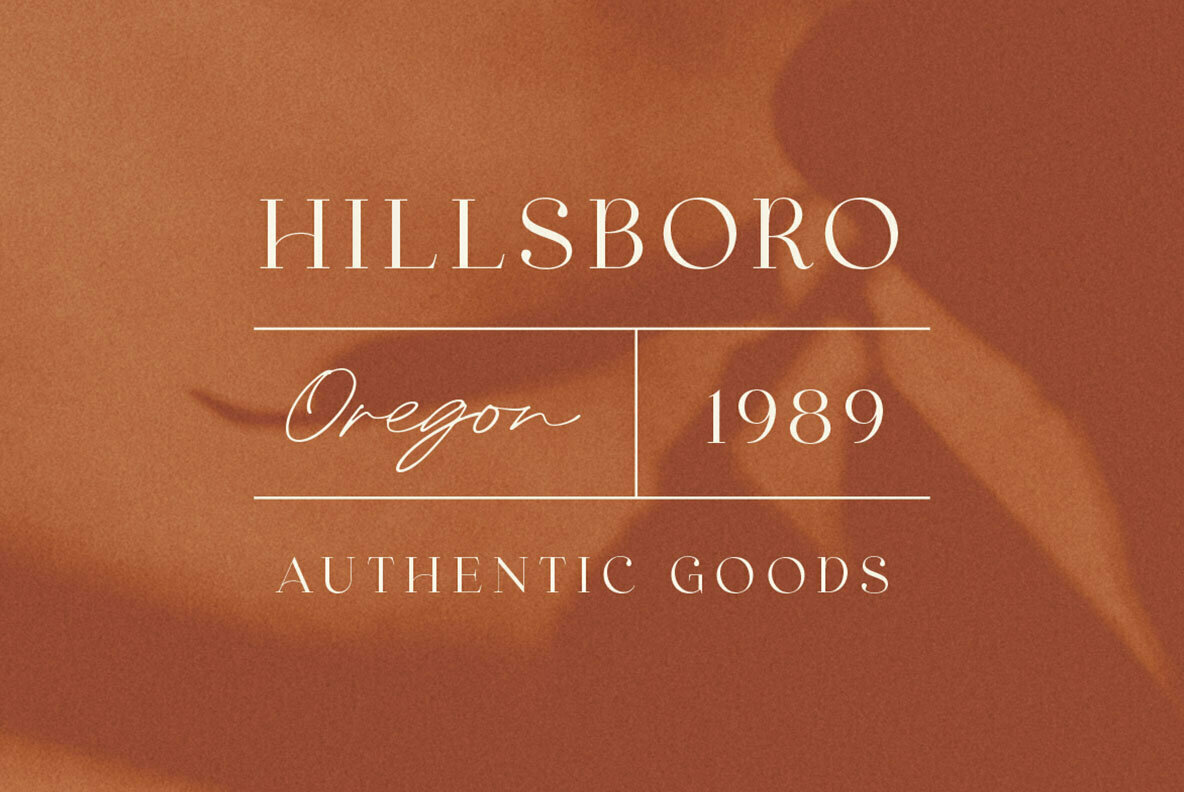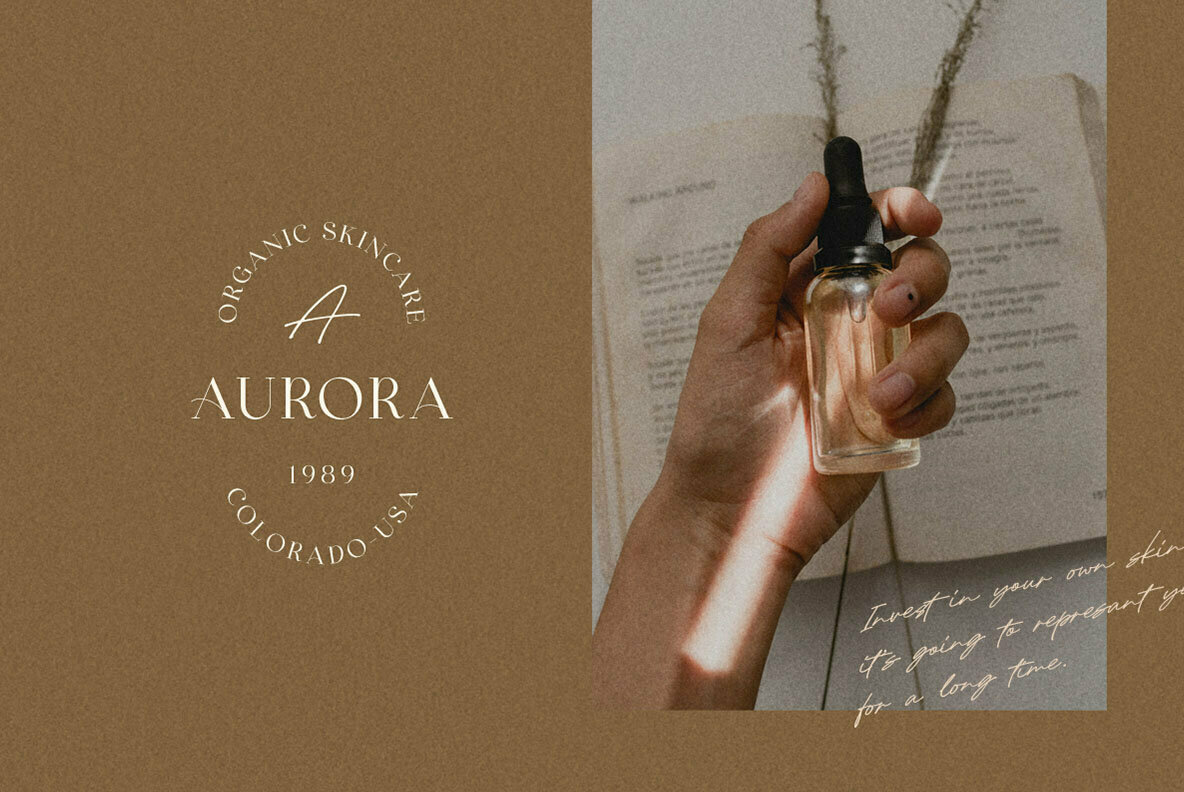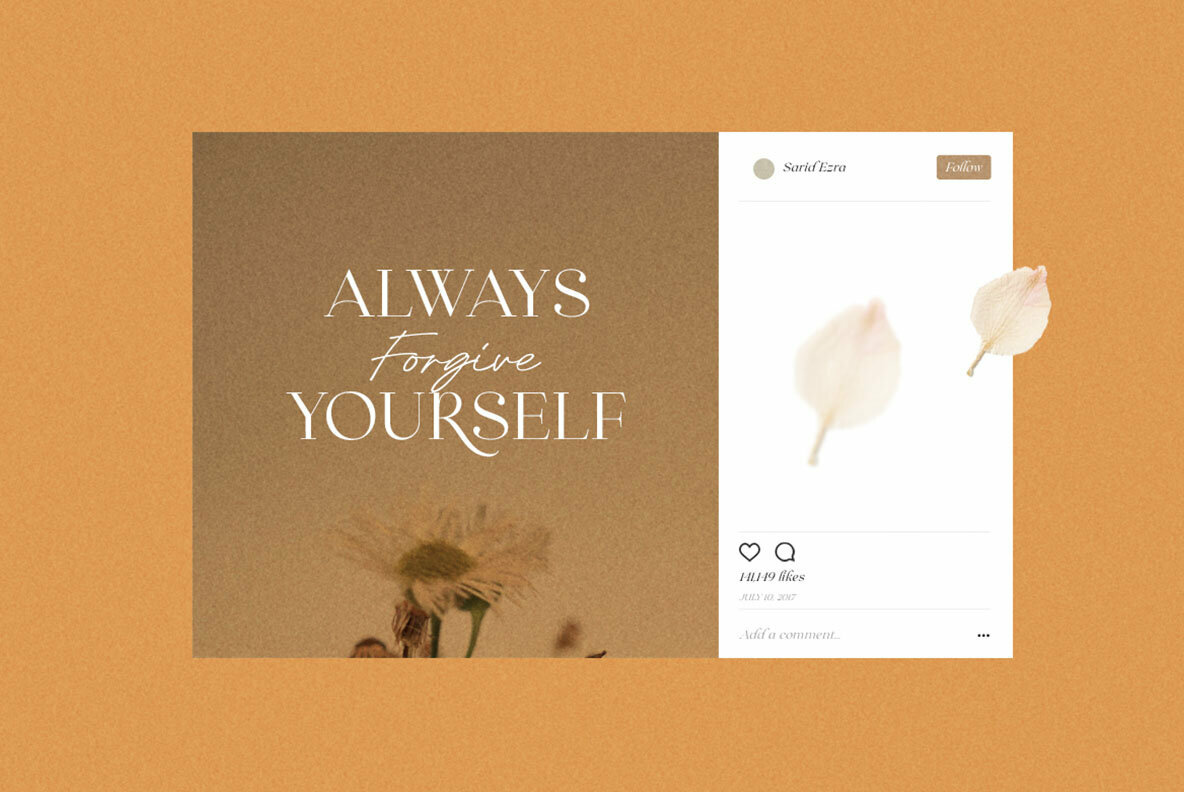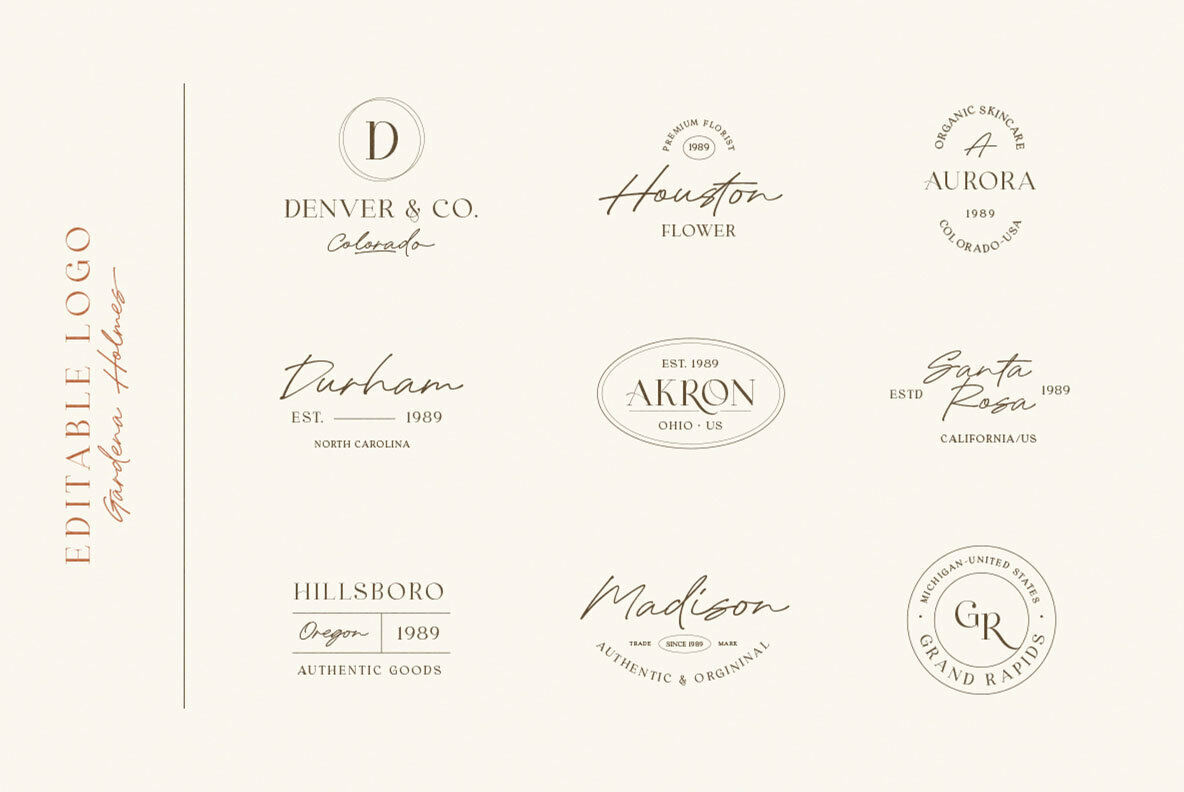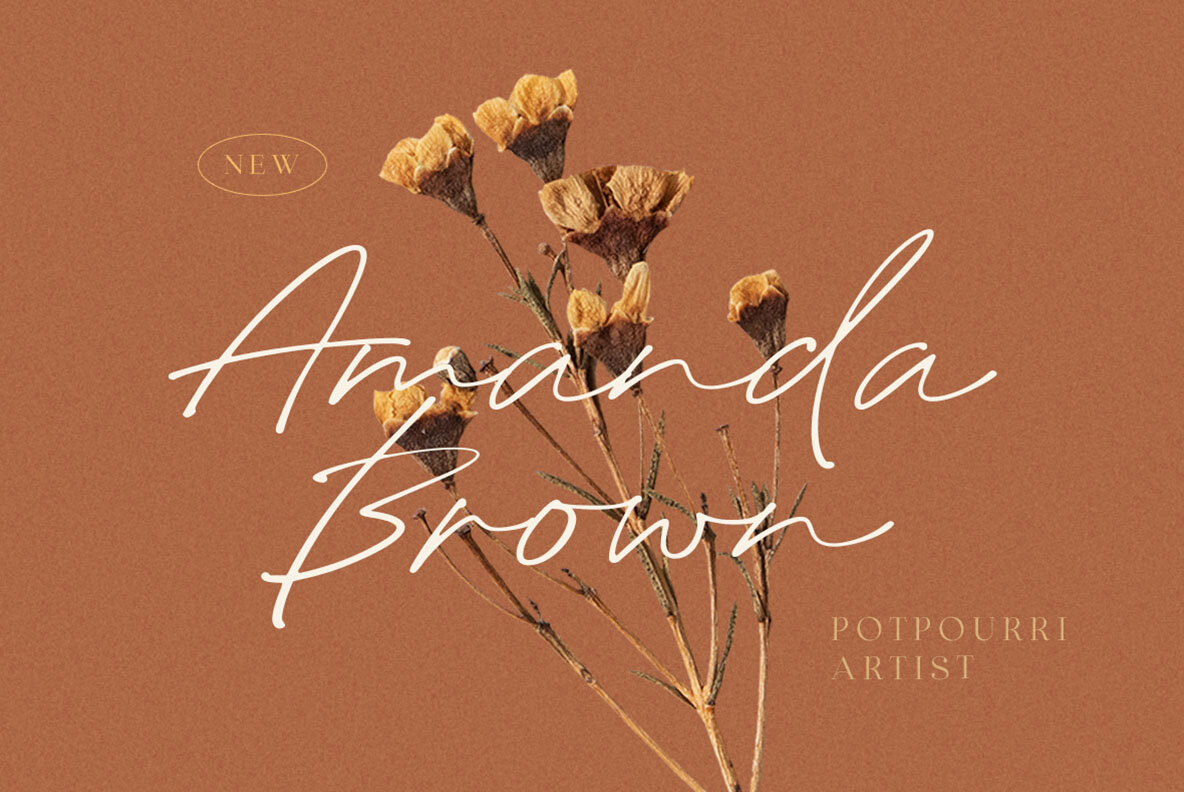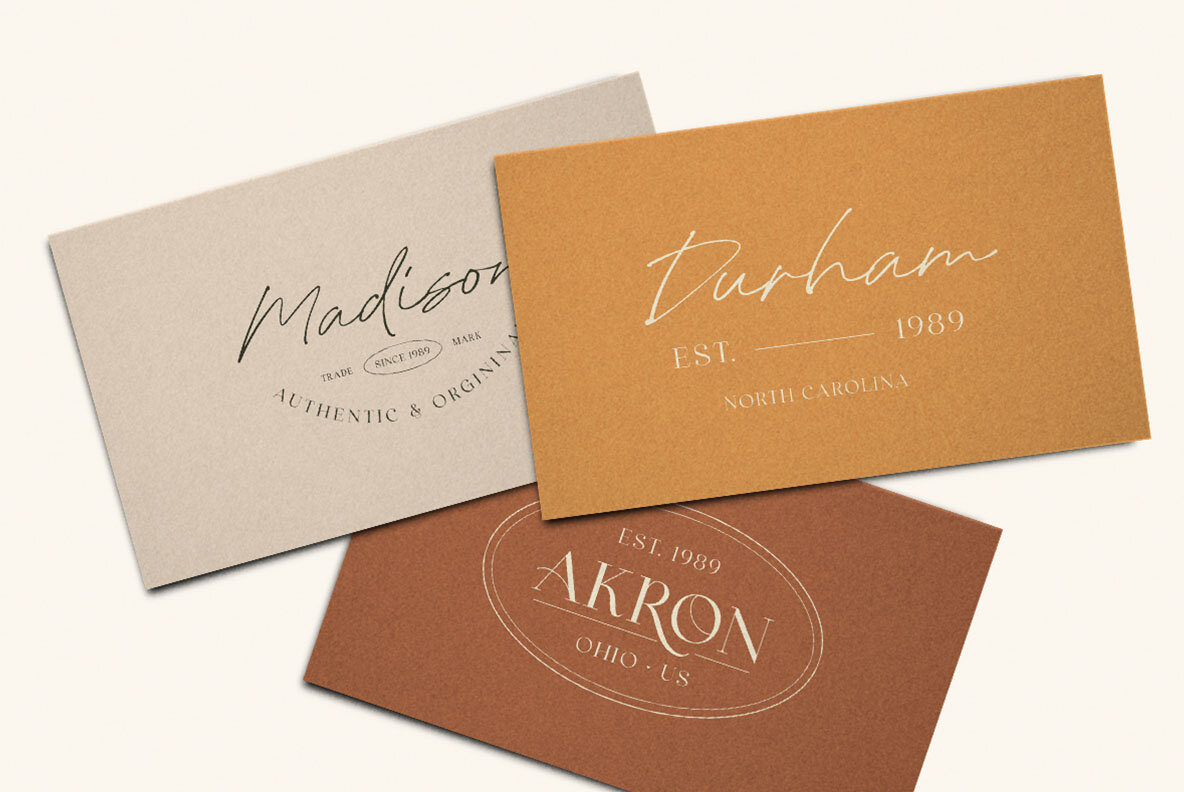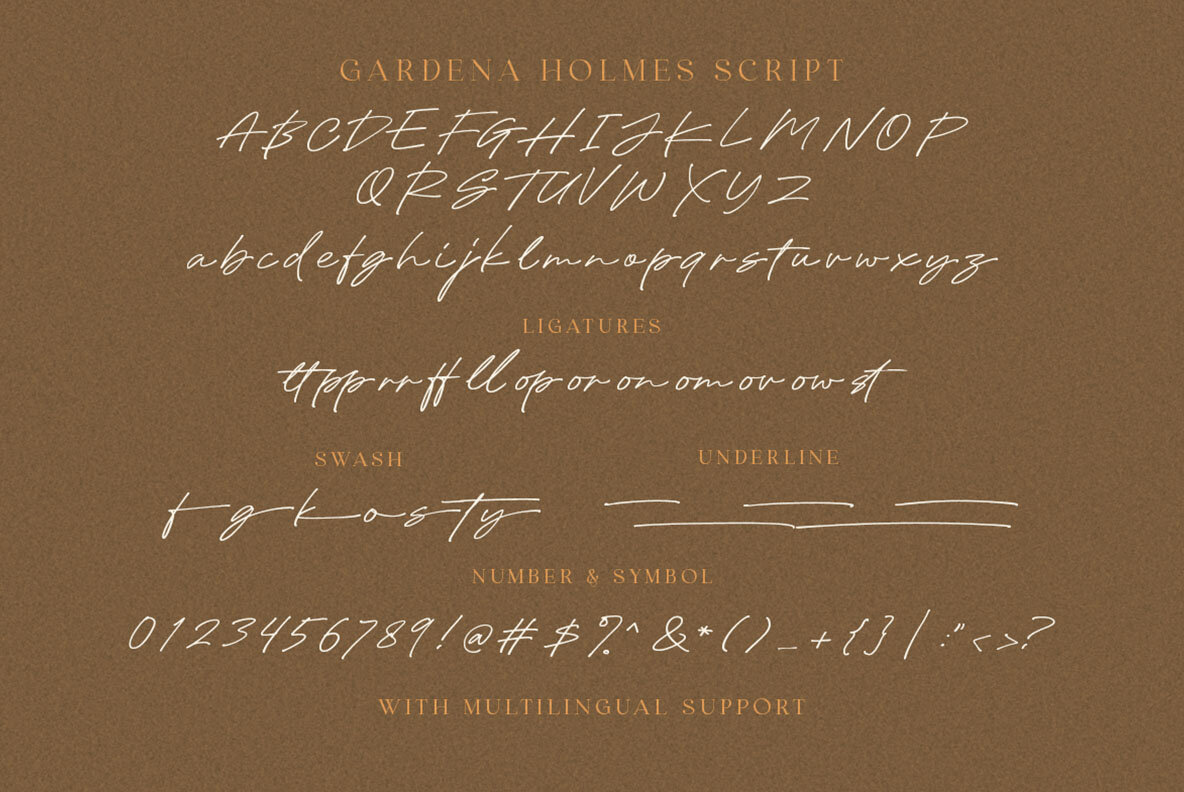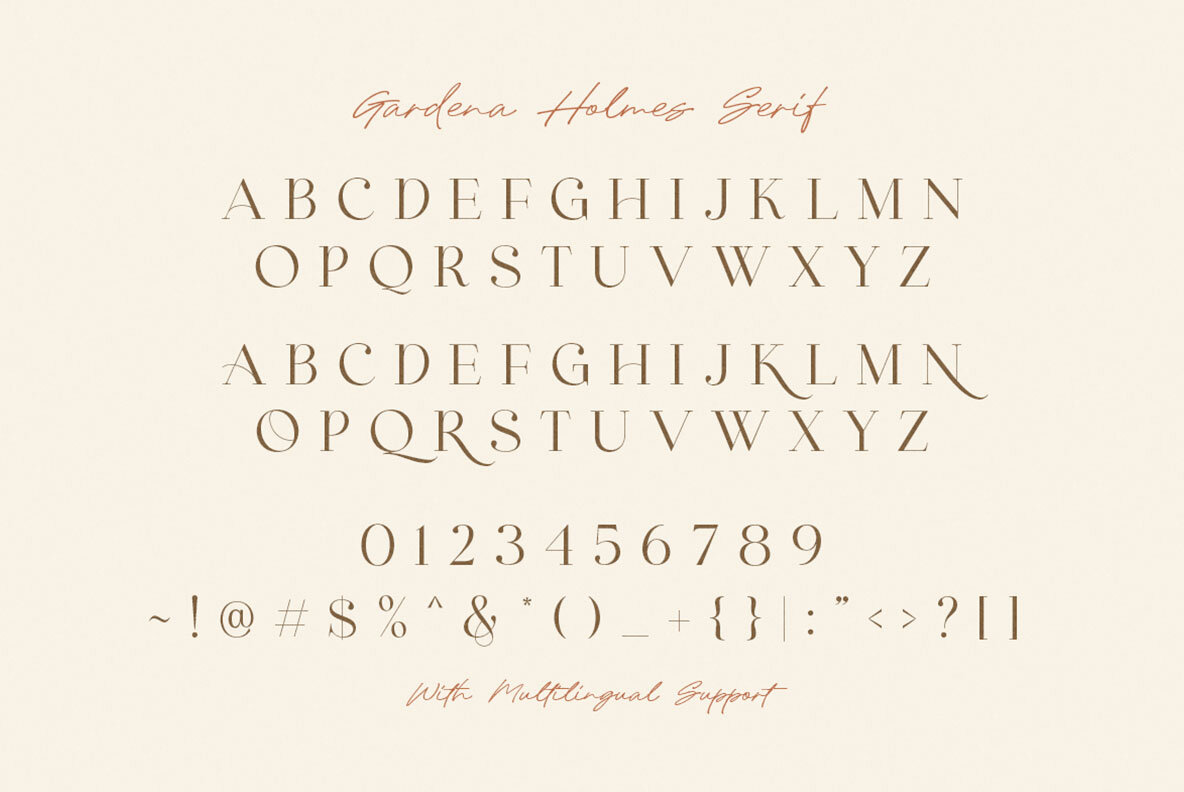
Gardena Holmes Font
Gardena Holmes Script
Gardena Holmes Serif
A perfect synergy between timeless serif and contemporary script defines the Gardena Holmes font duo. This collection includes a refined modern serif complemented by a distinctive handwritten script. Both fonts support multilingual characters, numbers, symbols, end swashes, and numerous ligatures, all PUA encoded for seamless use. This font duo is an excellent choice for designers looking to effortlessly blend classic charm with a modern touch.Gardena Holmes: Classic Serif and Script Elegance